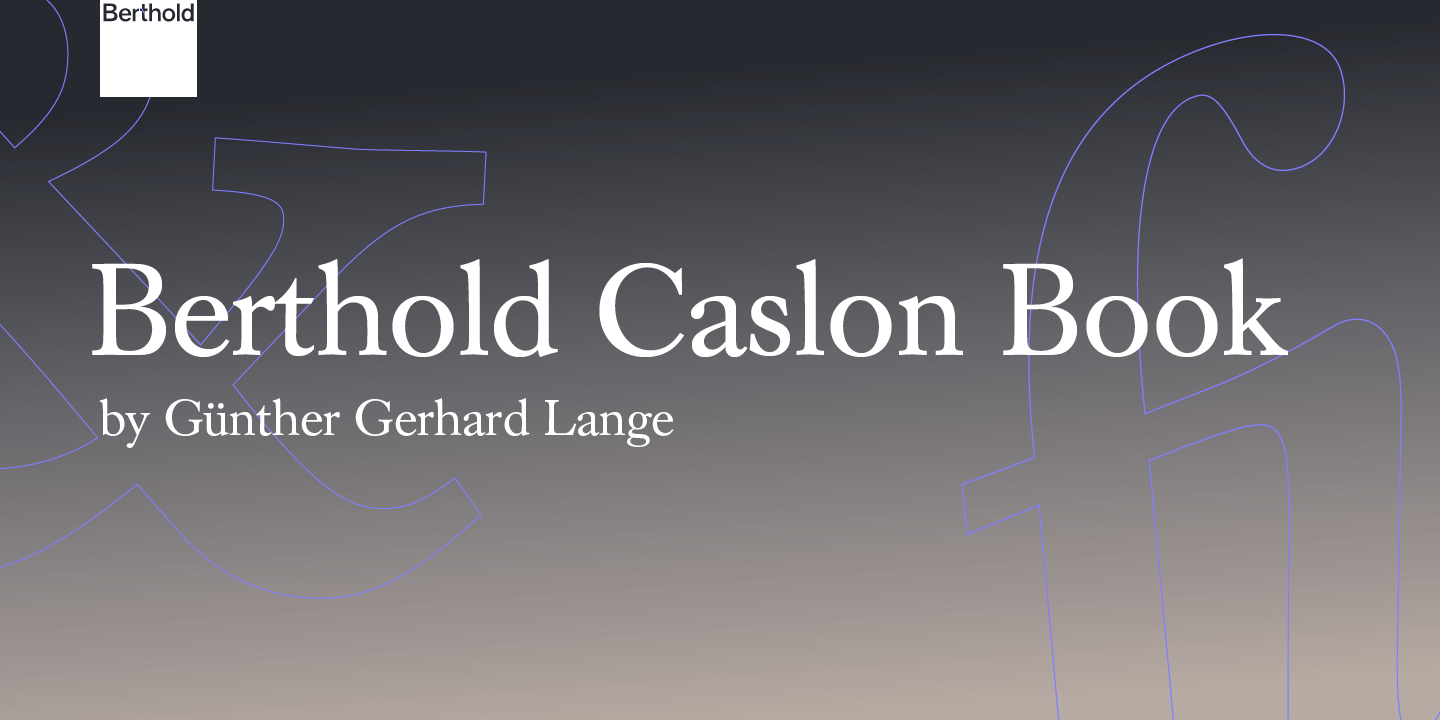
Berthold Caslon Book Font Free Download is a refined serif typeface inspired by the historic Caslon designs, renowned for their timeless elegance and readability. This font is ideal for books, magazines, editorial projects, and any design requiring a classic, sophisticated touch.
With its well-balanced proportions and subtle stroke contrast, Berthold Caslon Book offers excellent legibility, making it perfect for both body text and headlines. Its traditional style adds a sense of heritage and trustworthiness to your work.
Berthold Caslon Book Font Free Download supports multiple weights and styles, allowing designers to create harmonious and dynamic typographic hierarchies. It integrates seamlessly with major design platforms such as Adobe Creative Suite, Figma, Sketch, and Canva.